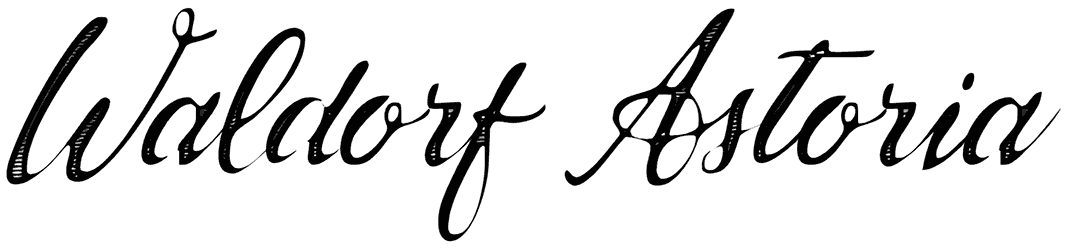
Waldorf Astoria Font
Introducing Waldorf Astoria, a modern calligraphy font that comes with a cursive style. It feels hearty, sweet, and adorable, which makes for an excellent view for the eyes.
This font is not flawless and doesn’t support numbers and most punctuation, so you might have difficulty using it in body text, but it will work well for wedding invitations, movie posters, branding, business cards, and apparel prints.
Three layered fonts.